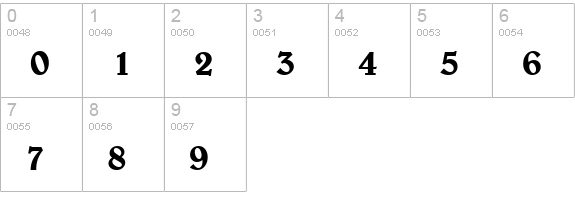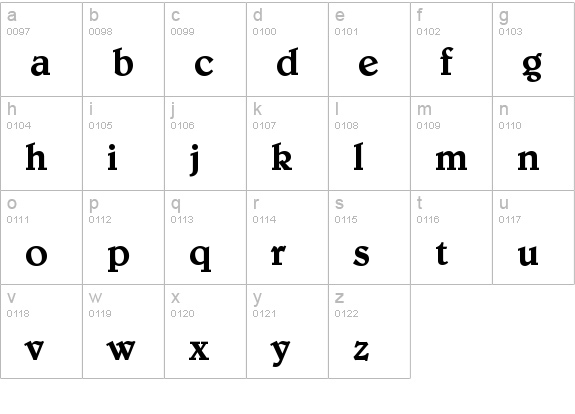
URWBerniniTMed Font Details
URWBerniniTMed is an exquisite font that effortlessly combines elegance and sophistication. With its balanced letterforms and timeless appeal, this font is the perfect choice for adding a touch of refinement to any design project. The URWBerniniTMed font features a harmonious blend of curves and straight lines, creating a sense of balance and harmony. Each letter is meticulously crafted, with attention to detail that is second to none. The result is a font that exudes a sense of luxury and class. What sets URWBerniniTMed apart is its versatility. Whether you're designing a logo, creating a wedding invitation, or crafting a magazine layout, this font has you covered. Its clean lines and legible letterforms make it suitable for both print and digital applications. One of the best things about URWBerniniTMed is that it is freely available to download at FontsMarket.com. This means that you can enjoy the beauty and sophistication of this font without having to spend a dime. So whether you're a professional designer or a hobbyist, you can take advantage of this font's timeless elegance. In conclusion, URWBerniniTMed is a font that effortlessly combines elegance and sophistication. Its balanced letterforms and timeless appeal make it the perfect choice for adding a touch of refinement to any design project. And with its availability as a free download at FontsMarket.com, there's no reason not to add this stunning font to your collection.